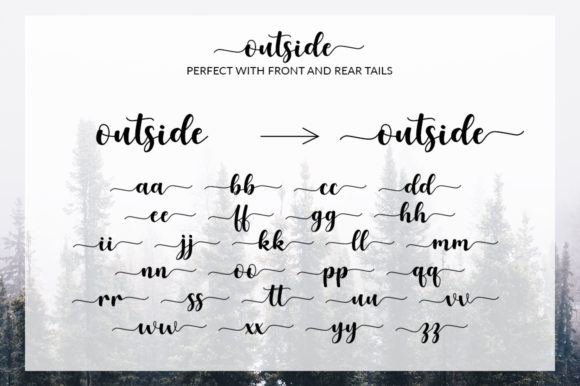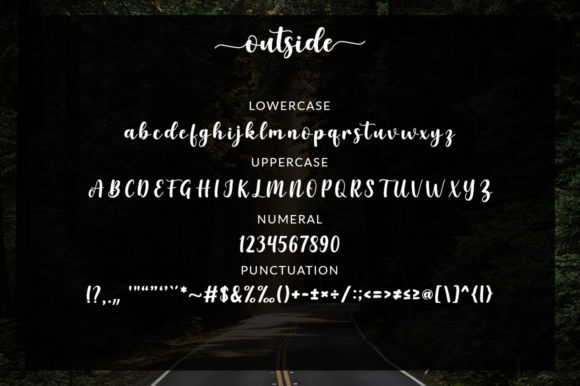
Outside Font
db-ku.com - Script & Handwritten -- Outside is a bold script font, carefully handcrafted to become a true favorite. Its casual charm makes it appear wonderfully down-to-earth, readable and, ultimately, incredibly versatile. Outside will look outstanding in any context, whether it’s being used on busy backgrounds or as a standalone headline!